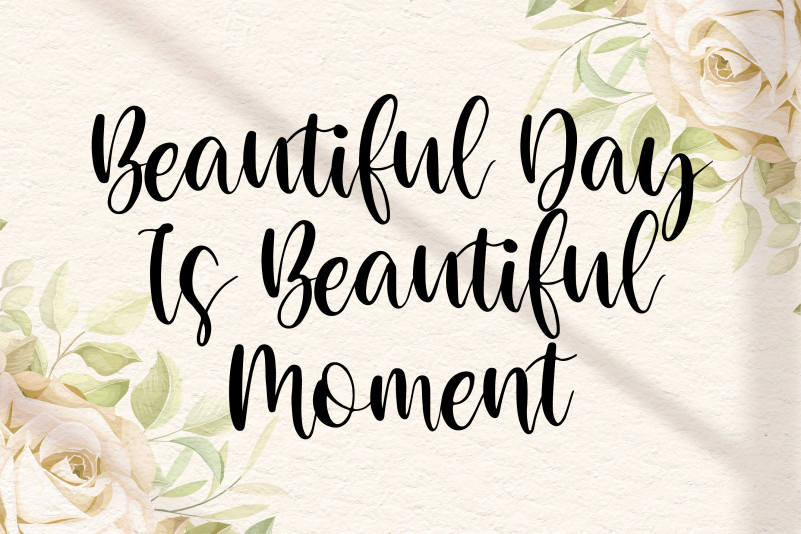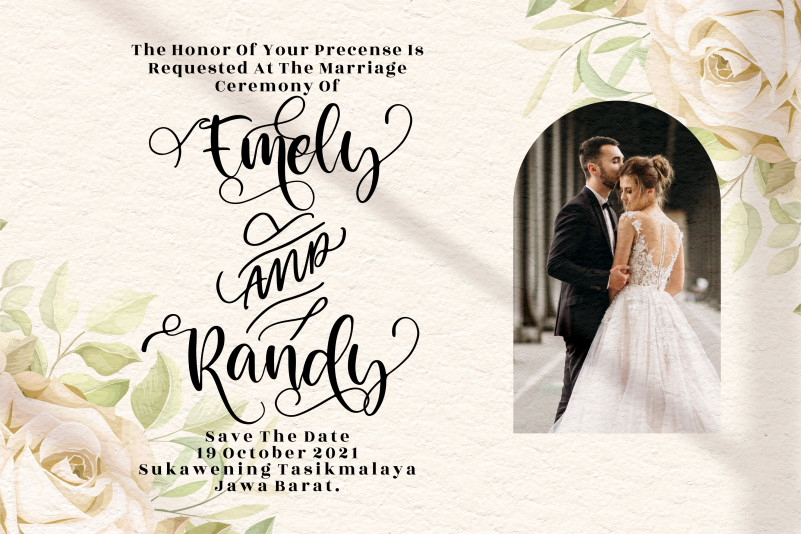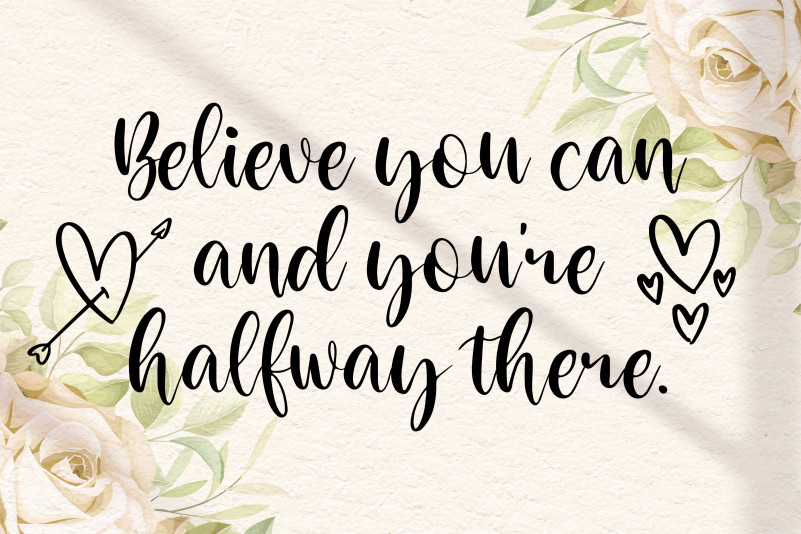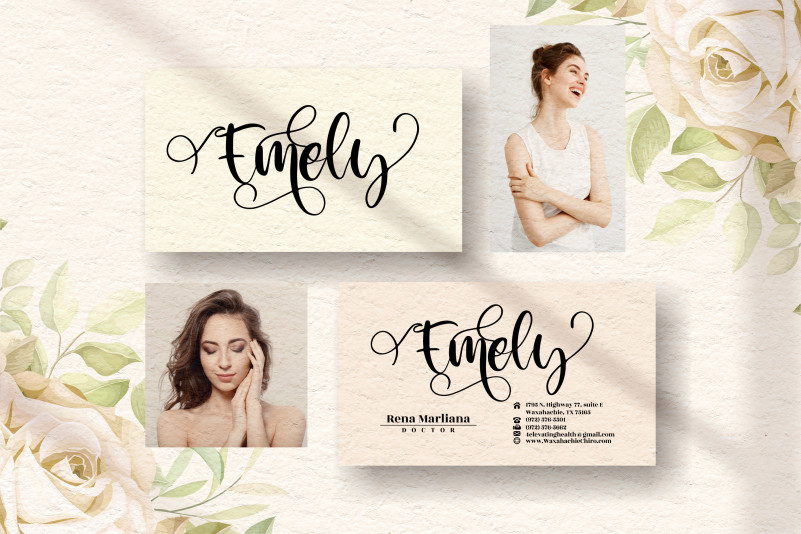
Derllina Font
Derllina Font is a beautiful light handwritten font with a unique feel and a stunning impact. It will add a luxury spark to any design project that you wish to create! This font is PUA encoded which means you can access all of the amazing glyphs and ligatures with ease!